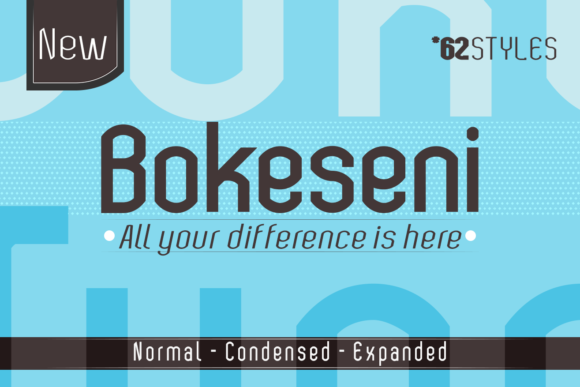
Bokeseni Condensed Font
About Bokeseni Condensed Font
Bokeseni is a cute and casual sans serif font with an undeniably clean feel. It includes a normal, and expanded version. With its neat and beautiful arrangement of letters, this typeface will look outstanding in both formal and non-formal designs.